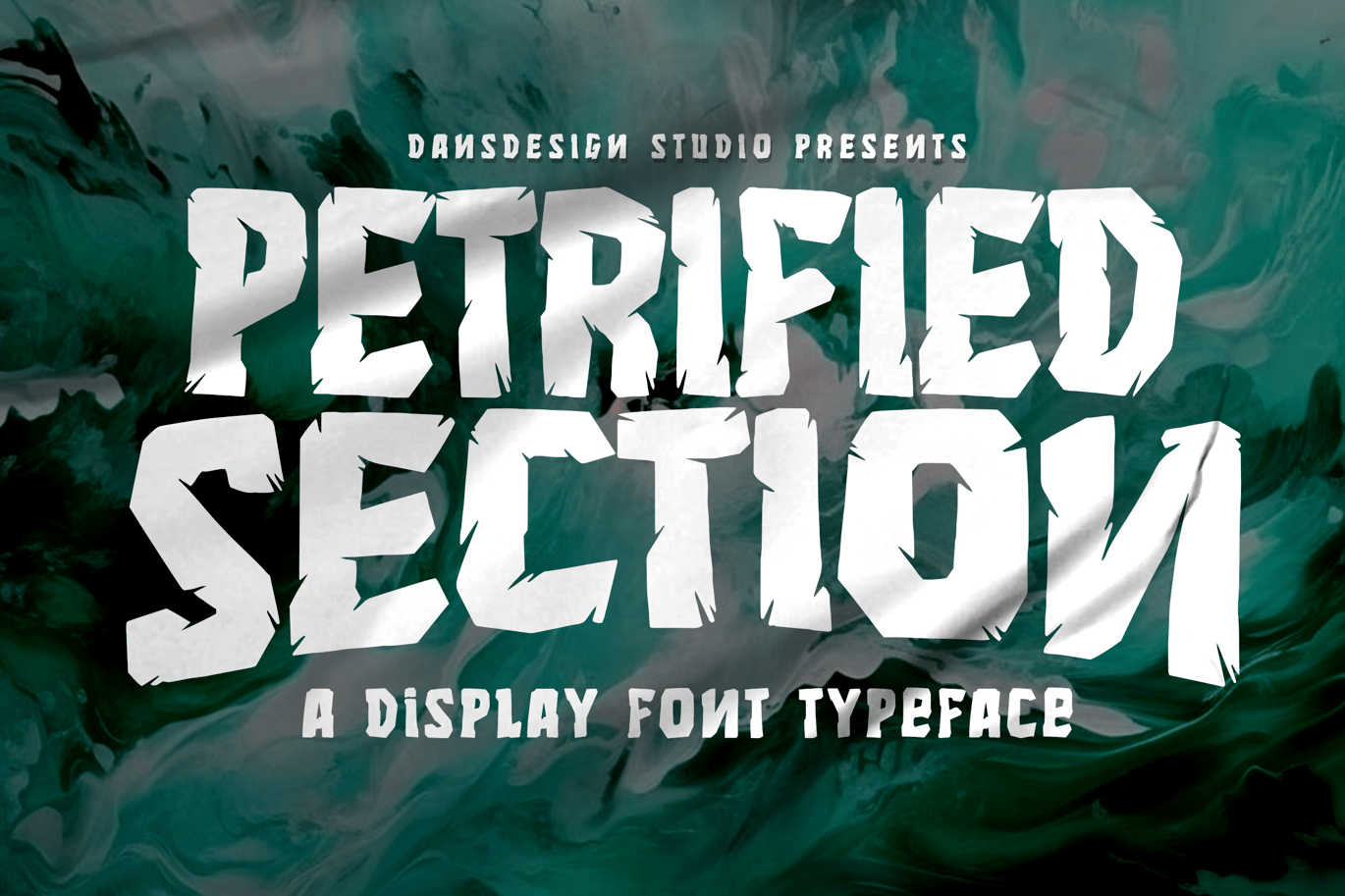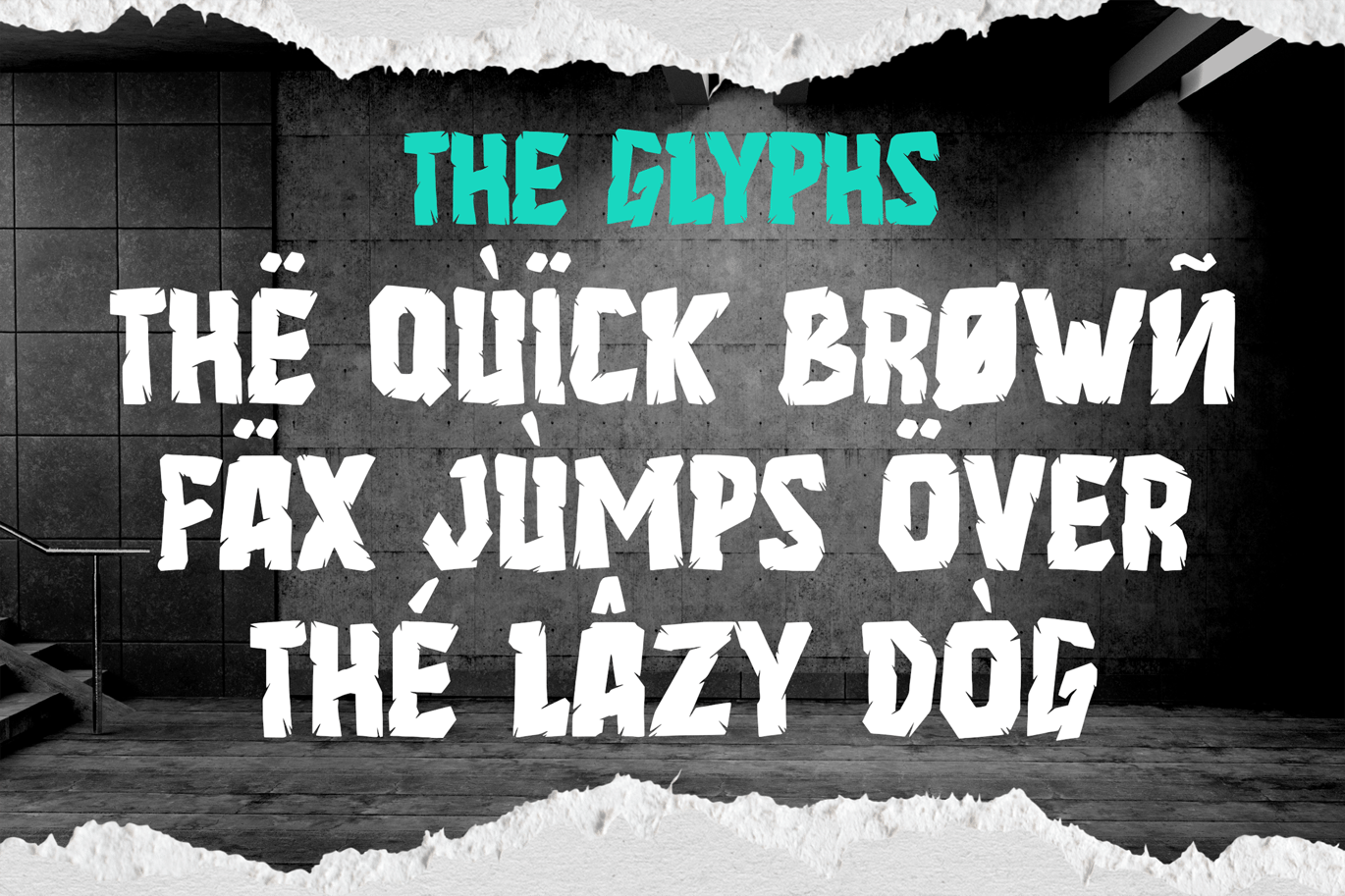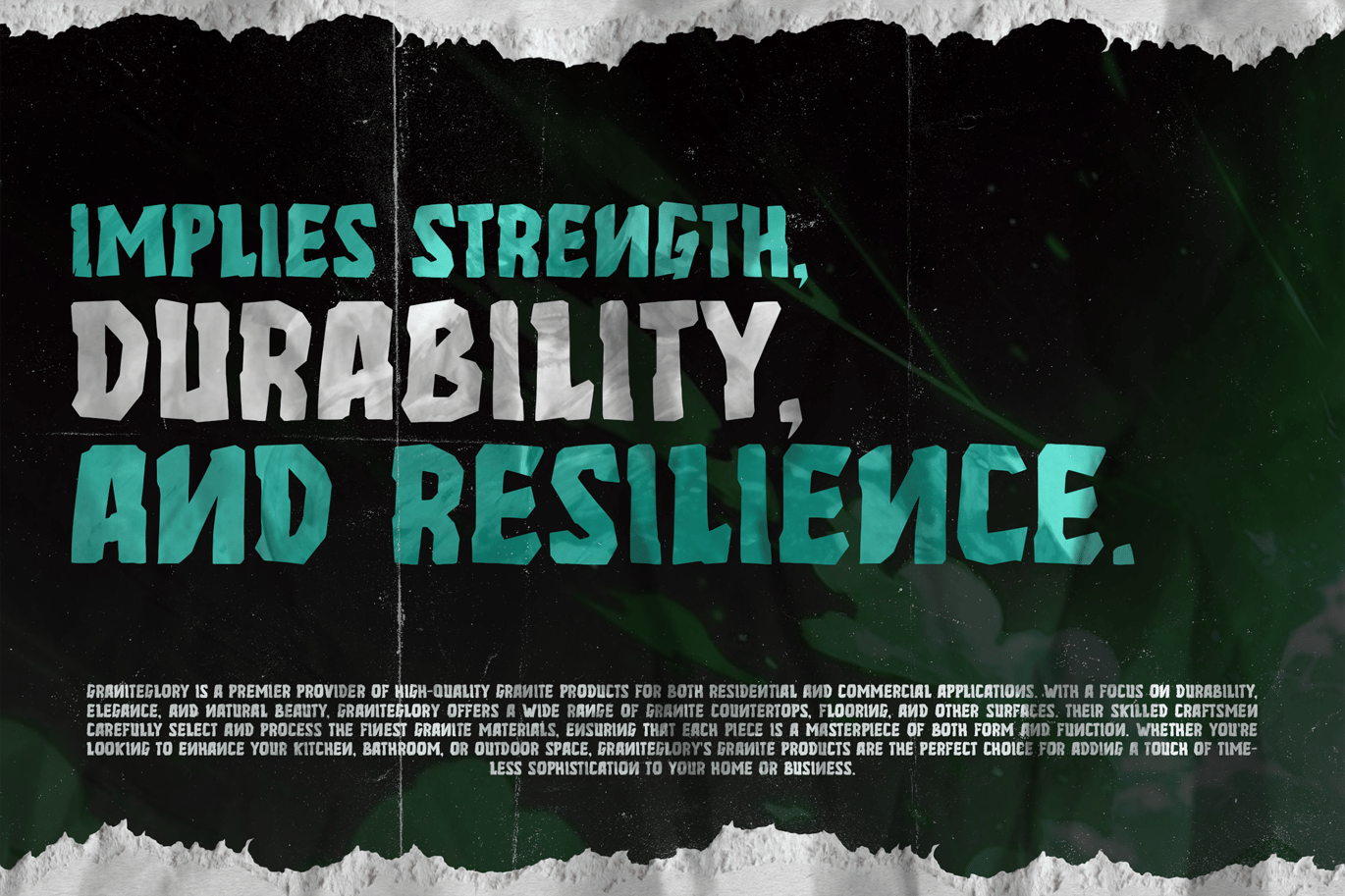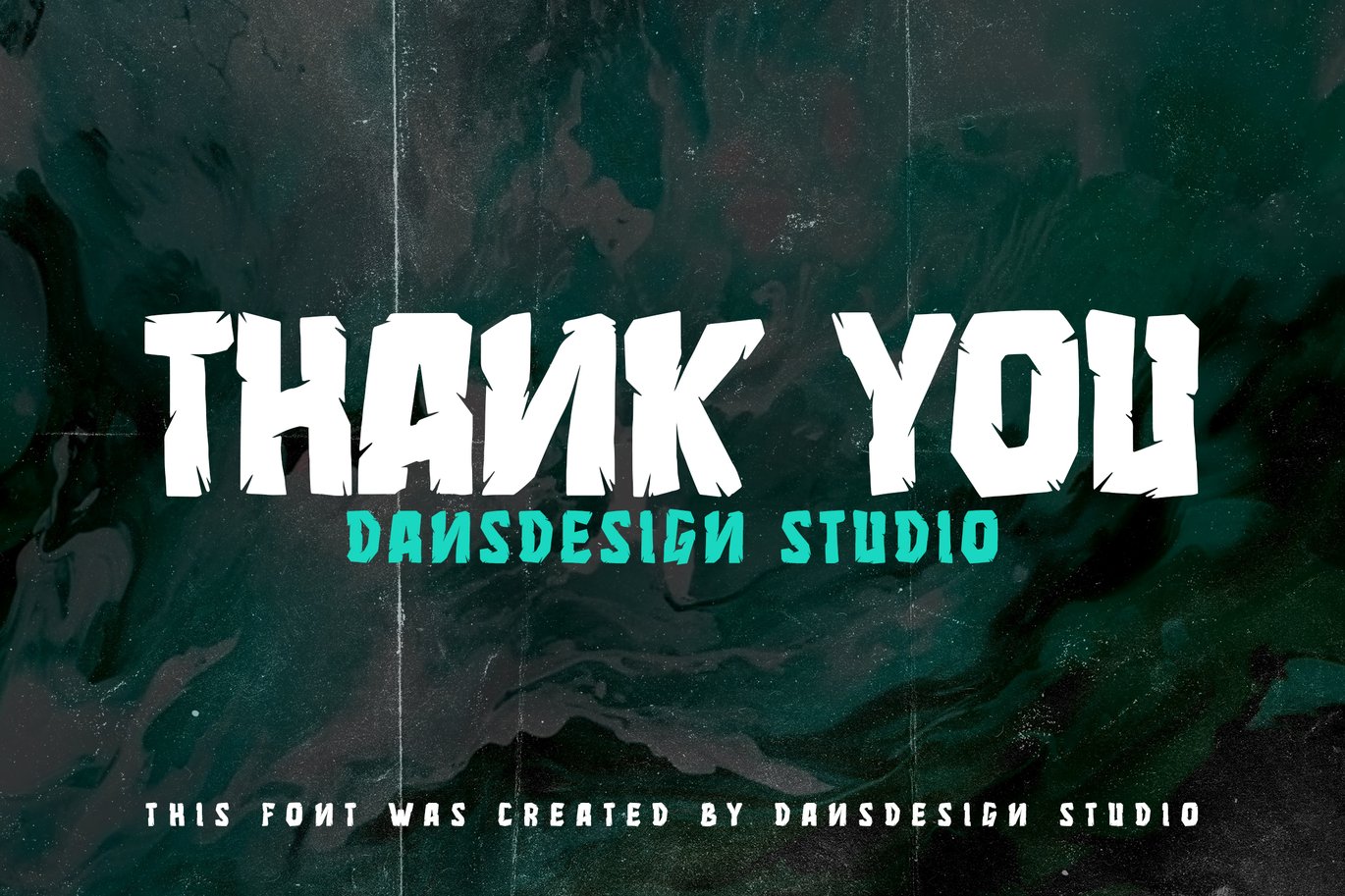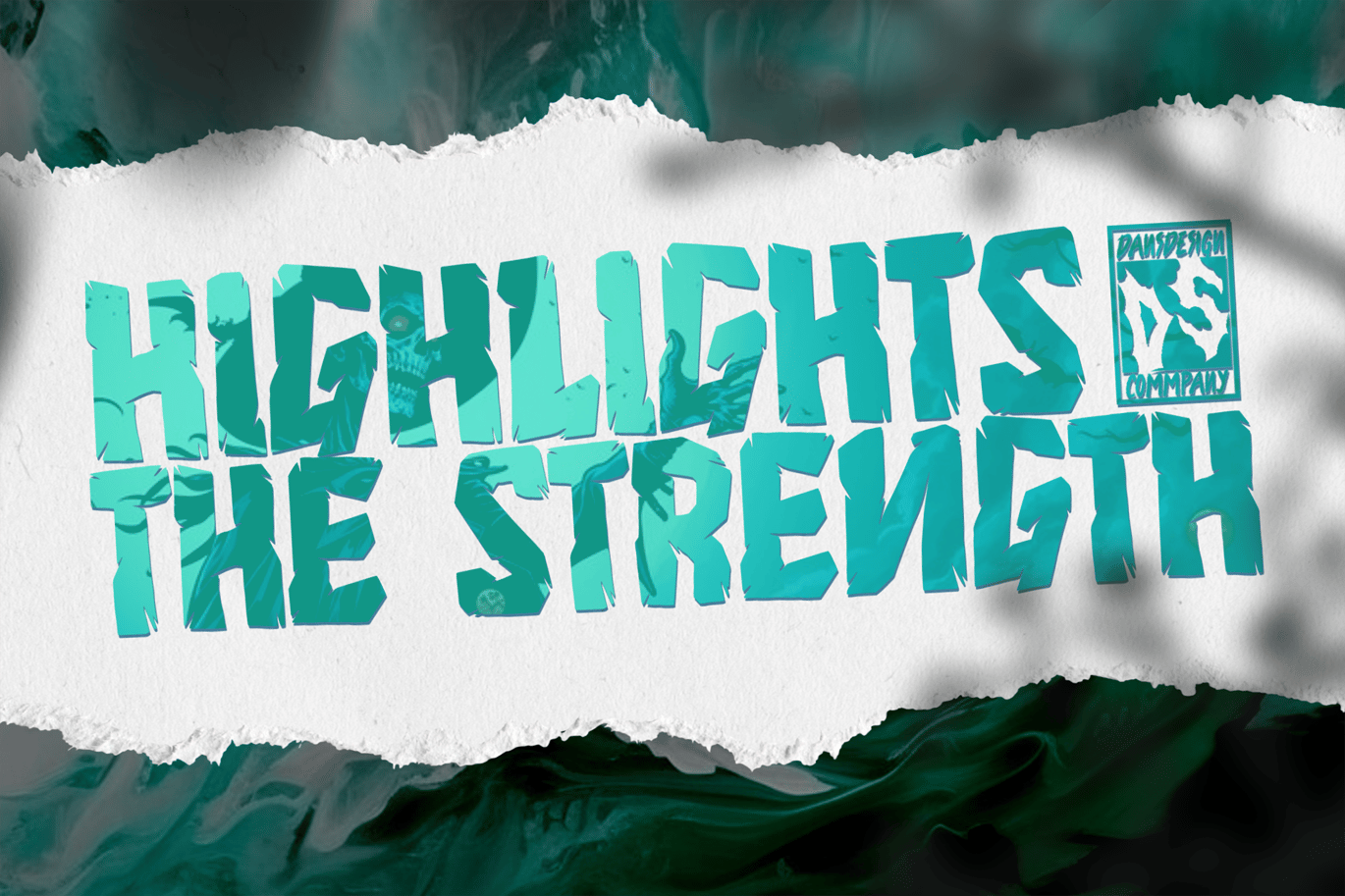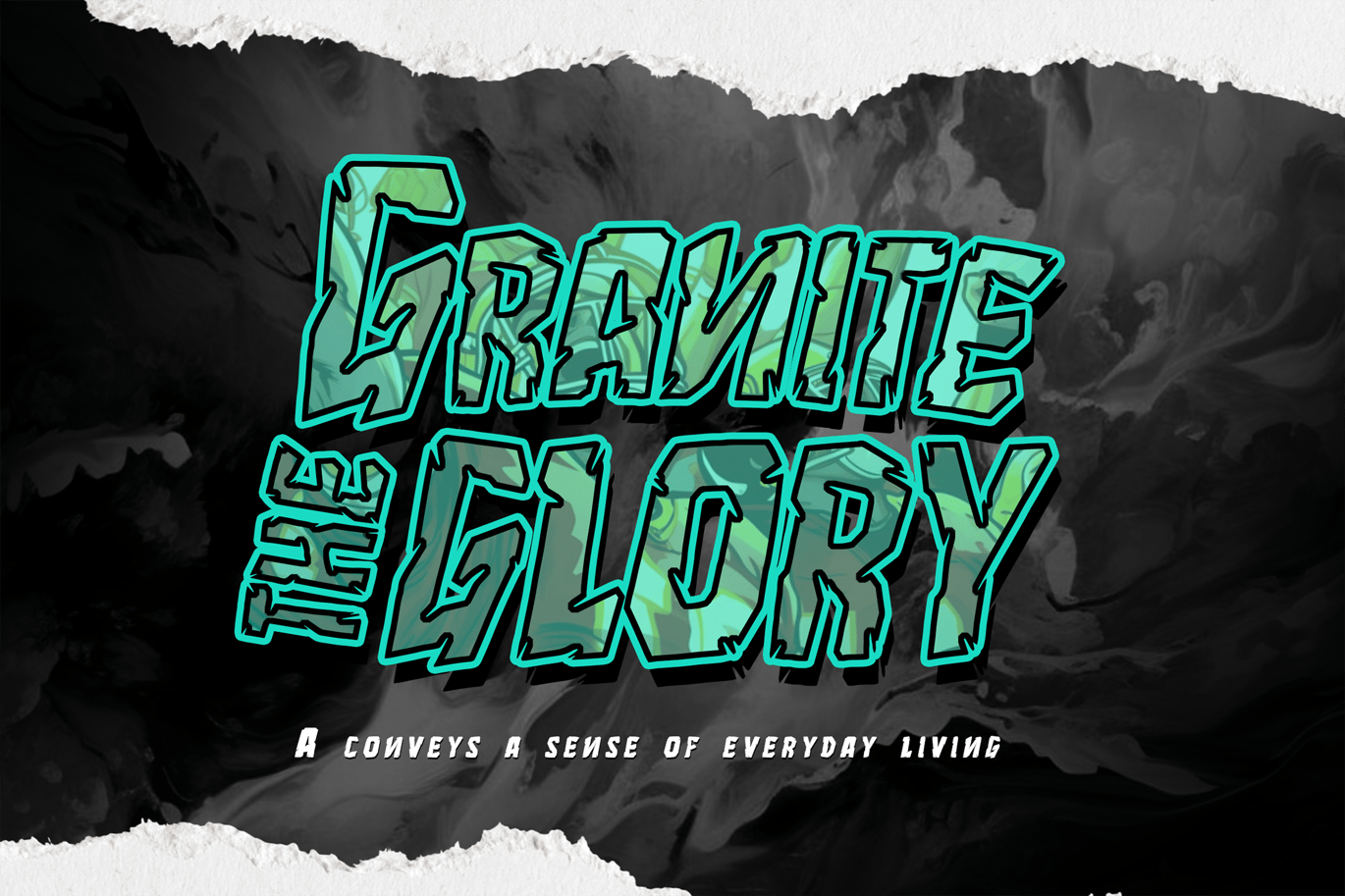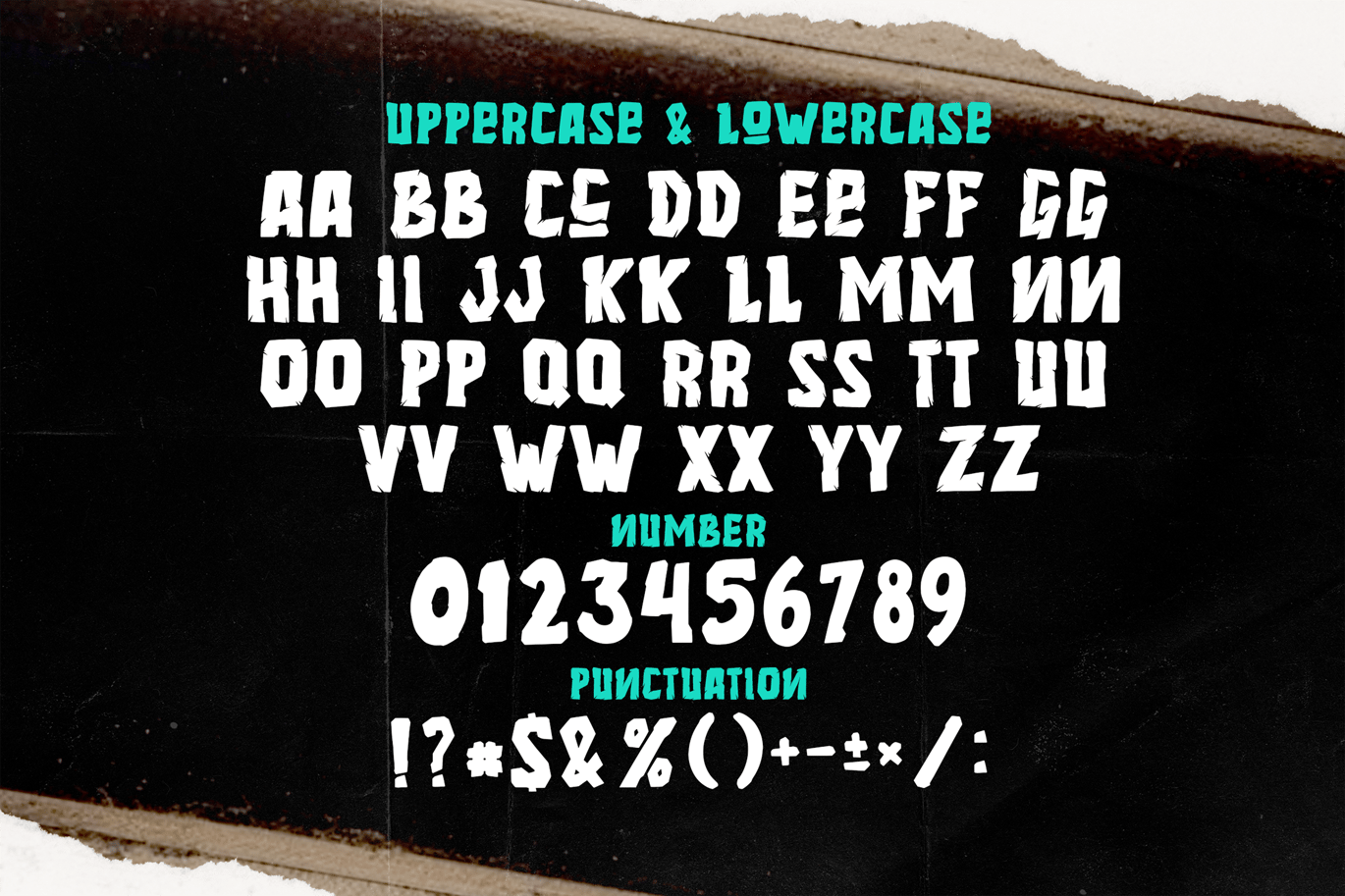
Petrified Section Graffiti Horror Display Font
Petrified Section Graffiti Horror Display Font is a  distinct, highly detailed. Marker Display Font.
It would make a great choice for exquisite retro-urban designs, business branding, logos, Apparel designs, and more.